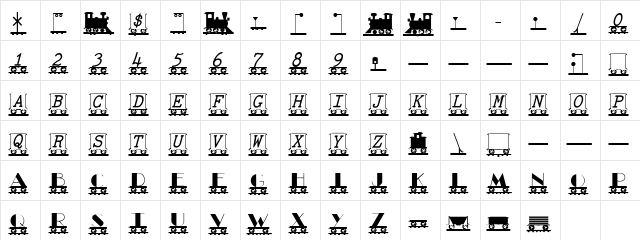
LetterTrain Italic
Design Context for LetterTrain Typeface
LetterTrain is a composed and adaptable typeface that performs quietly and consistently across a wide range of design contexts. Its italic angle brings a sense of urgency and motion to the letterforms.
Pro Tip: Try LetterTrain for annotation and caption copy alongside an upright companion — the contrast in angle creates a dynamic but ordered typographic system.